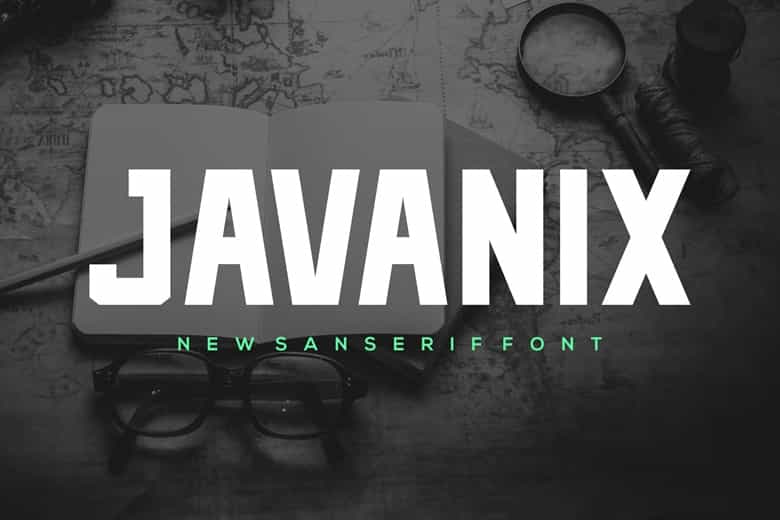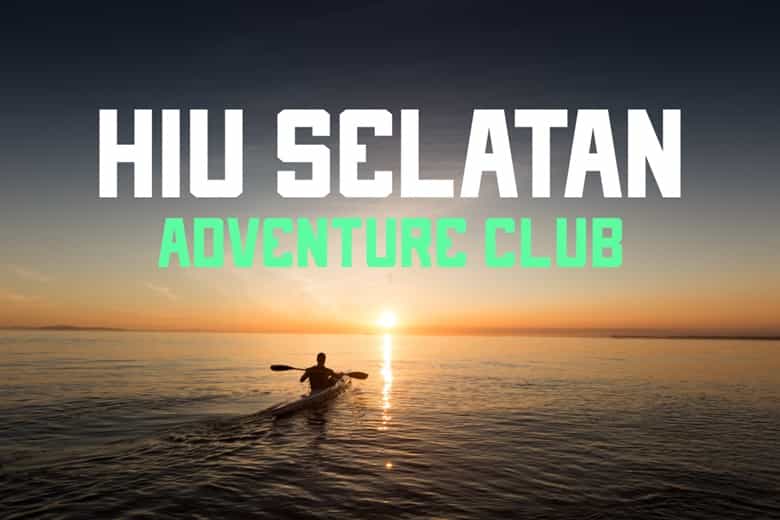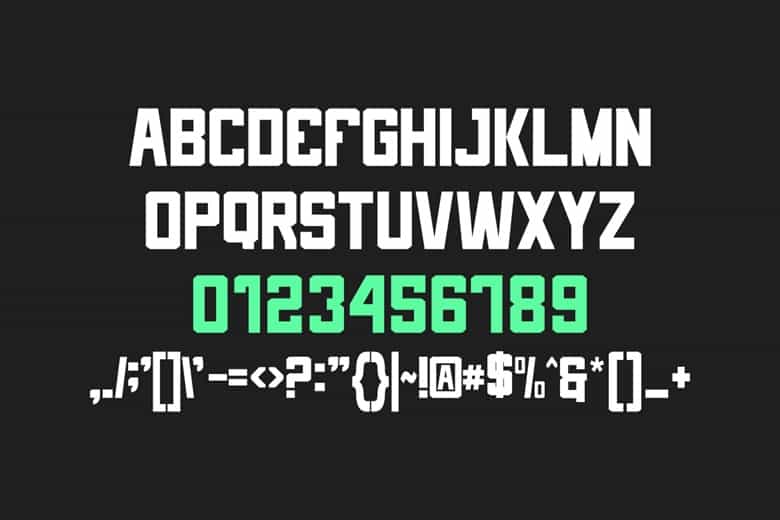
Javanix is a new modern and unique bold sans serif font that will be great for branding purposes like logos or when designing for sports related projects. It is rife in many areas.